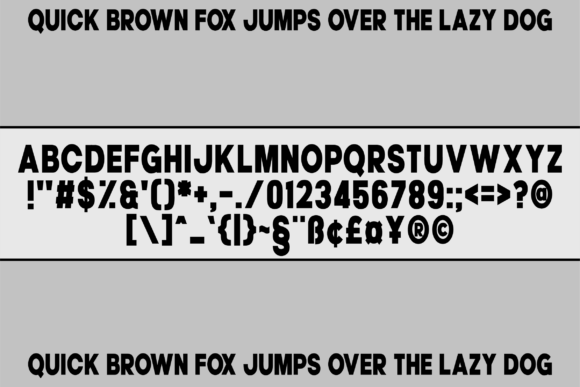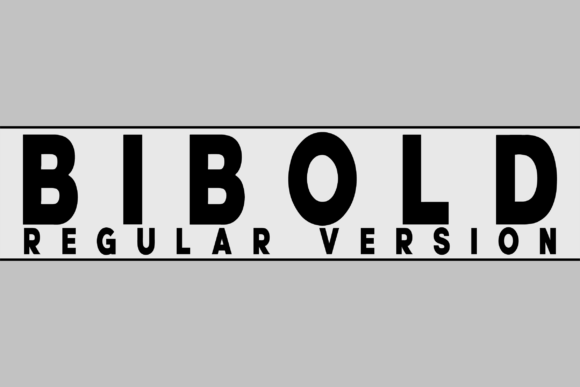
The Perfect Blend of Strength and Sophistication
Have you ever stared at a blank page, feeling the weight of creativity’s pressure? You know, that moment when inspiration strikes, but the right words and design just won’t come together? For designers, this is a familiar sensation, and it’s exactly what makes discovering a new font like the Bibold Font so exhilarating.
Developed to add a technical edge to any design project, the Bibold Font is a powerful tool in a designer’s arsenal. Its strong and structural lines create a sense of depth and sophistication, making it perfect for anything from engineering manuals to high-end tech branding.
Whether you’re a seasoned pro or just starting out, incorporating the Bibold Font into your design workflow can be a game-changer. Its versatility and unique aesthetic make it an invaluable asset for any designer looking to elevate their work and take their projects to the next level.
Bibold Font Key Features
- Font Family: Boldob, a sans-serif font with a bold and playful feel.
- Unique Characteristics: Boldob’s distinctive rounded edges and subtle geometric shapes give it a friendly and approachable feel, making it perfect for use in branding, advertising, and editorial design.
Bibold Font Review
Overall, I think the Bibold Font is a decent addition to any designer’s toolkit. It has a certain charm to it that can be quite effective in the right context. ✨
- The font’s bold and playful feel makes it perfect for creating eye-catching headings and titles.
- It’s highly versatile and can be used in a variety of design projects, from logos to advertisements.
- The font’s unique style can add a touch of personality to your designs, making them stand out from the crowd.
However, I do have a few reservations about the font. ⚠️
- The font’s boldness can be overwhelming at times, making it difficult to read in certain situations.
- It may not be the best choice for body text, as it can be too attention-grabbing and distracting.
- The font’s limited character set can make it difficult to use in certain languages or for specific design elements.
Overall, I think the Bibold Font is a solid choice for designers looking to add some personality to their work. While it has its limitations, it can be a valuable tool in the right situations.
Tips for Getting the Most Out of Bibold Font
To get the most out of the Bibold Font, use it for headings and titles to add a touch of sophistication to your designs.
The Bibold Font is perfect for:
Headings and titles in presentations and documents.
Logos and branding materials.
Infographics and visual content.